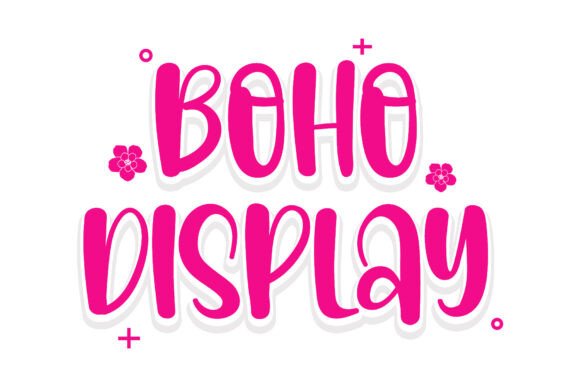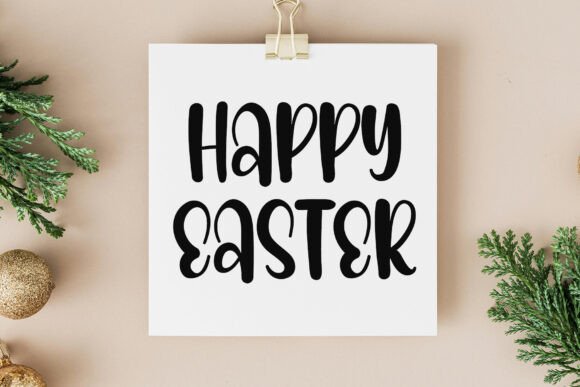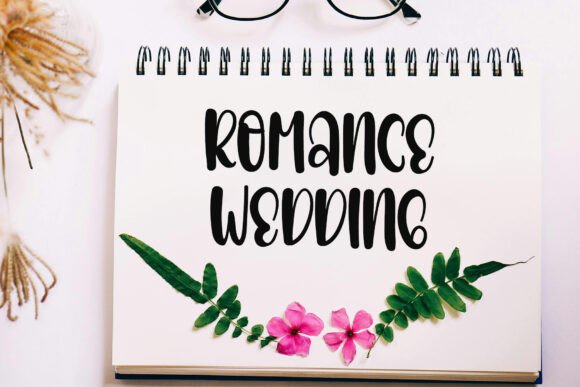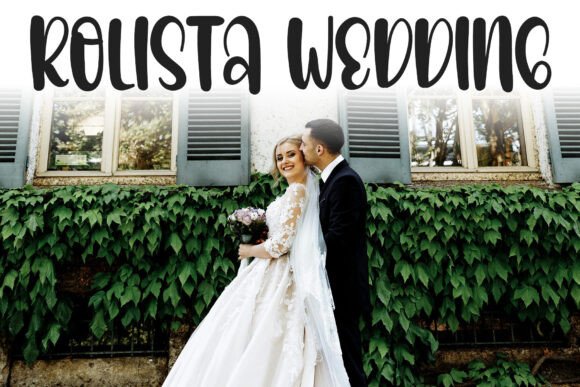
Boho Display Font
About the Boho Display Font
Meet Boho Display Font, a stunning font that brings a touch of elegance and professionalism to any design. Boho Display is a stylish handwritten font with a contemporary atmosphere and impeccable form, inspired by timeless classic calligraphy. Balanced and varied, this font was designed to enhance the beauty of your projects.
Boho Display excels as a headline font for projects requiring a touch of stylish, modern hand lettering. It’s ideal for branding materials such as logos, short taglines, and packaging where a touch of elegance and personality is desired. Posters and invitations also benefit from its distinctive character. However, its less suitable for body text or UI elements due to its script nature and potentially lower legibility in smaller sizes or dense layouts.
Pair Boho Display with a clean sans-serif like Montserrat for a contemporary feel, or a classic serif such as Playfair Display for a more traditional yet balanced look. A geometric sans-serif, such as Futura, can create a striking contrast and highlight Boho Display’s organic forms. Avoid pairing it with other script fonts, as this can lead to visual clutter.
Its core personality is sophisticated yet approachable; elegant but not overly formal. The font conveys a sense of handcrafted quality and understated luxury, making it perfect for brands aiming for a balanced aesthetic blend of modern and classic sensibilities.
Boho Display Font Usage Examples
Boho Display Font Example